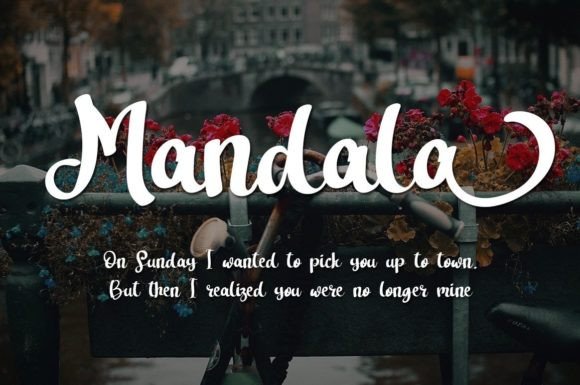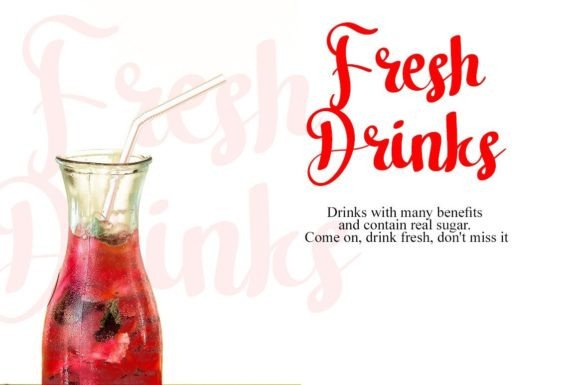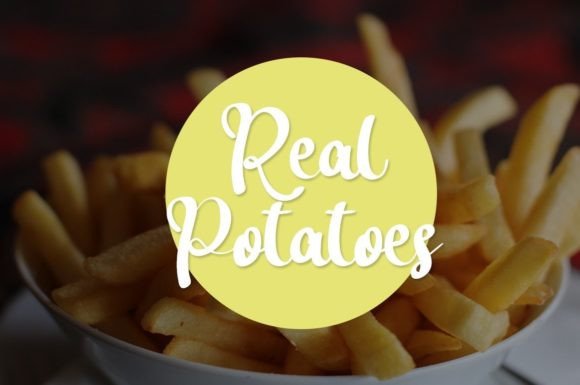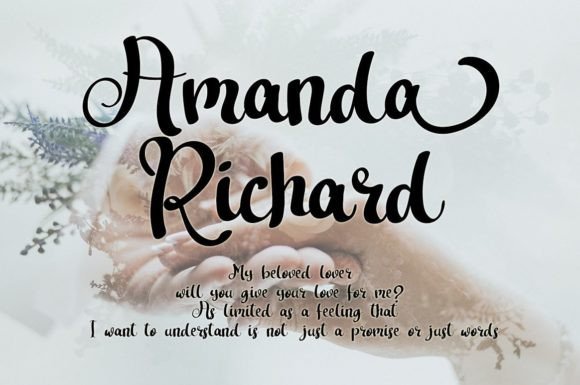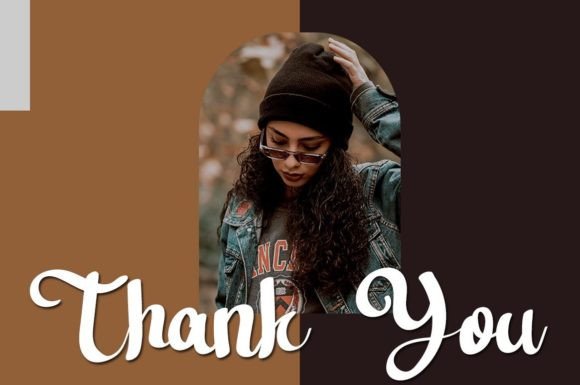
About The California Font
“The California” is a beautiful and sweet font that radiates a fresh, clean, and elegant vibe. Designed to be versatile, this font is poised to enhance a wide array of projects, seamlessly transitioning between formal and informal contexts. With its joyful touch, “The California” injects a delightful element into your designs, promising to make them visually captivating.
The font is crafted with the intention to simplify your design process. Whether you’re working on formal documents, creative projects, branding materials, or any other design endeavor, “The California” offers a user-friendly solution that adds a sense of beauty and sophistication to your work.
The fresh and clean aesthetic of “The California” aligns well with various design applications, allowing it to bring an elegant touch to your visual presentations. More than just a font, it serves as a design tool that enhances the overall appearance of your business, leaving a beautiful and memorable impression.
In summary, “The California” is more than a font; it’s a versatile and elegant design element that infuses joy into your projects. With its fresh, clean, and joyful characteristics, this font is tailored to make your business look more beautiful and create a positive impact on your audience. Let “The California” be the font that adds a touch of beauty and sophistication to your designs, making them truly stand out.